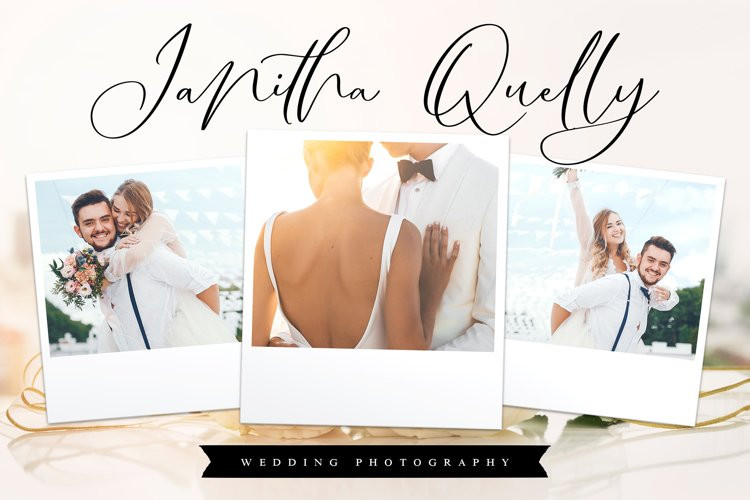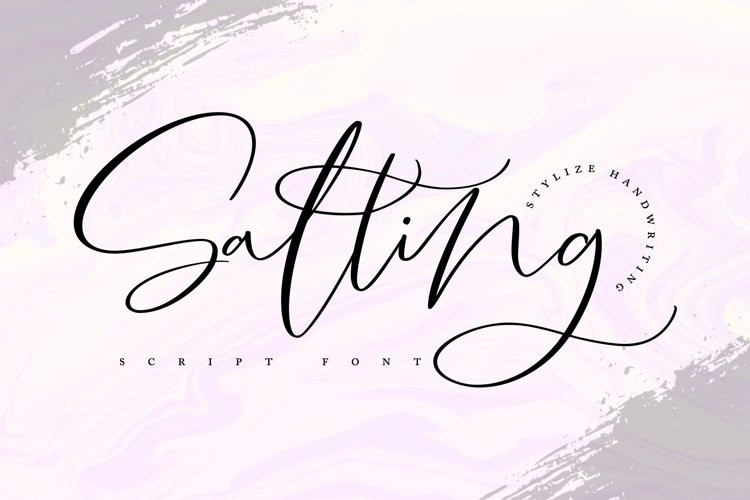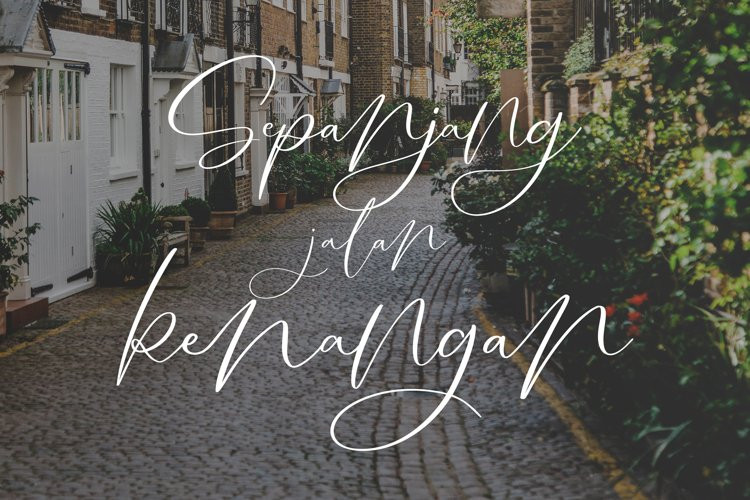
Salting Font
Salting FontSalting | Handwriting Script Font** with a calligraphy style, So beautiful on invitation like greeting cards, branding materials, business cards, quotes, posters, and more!